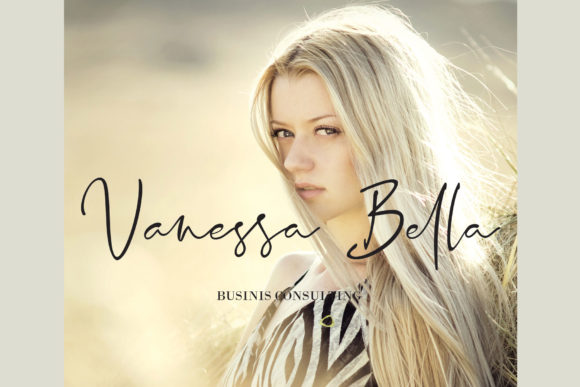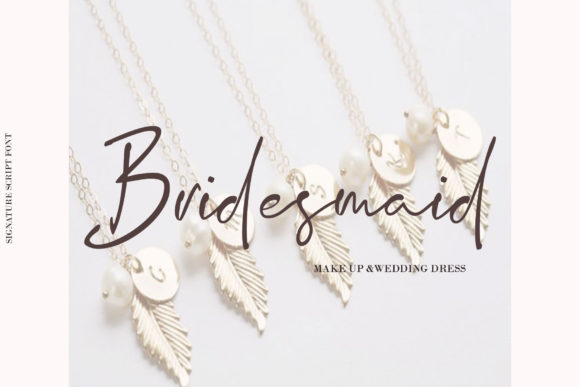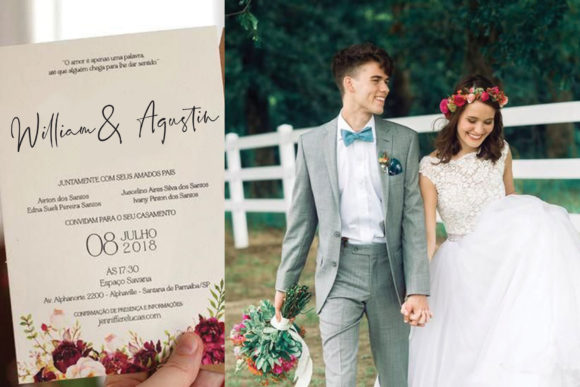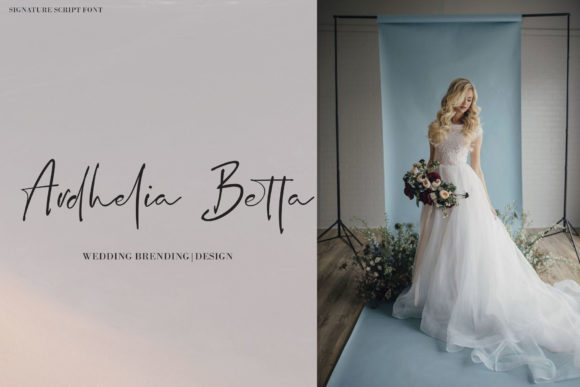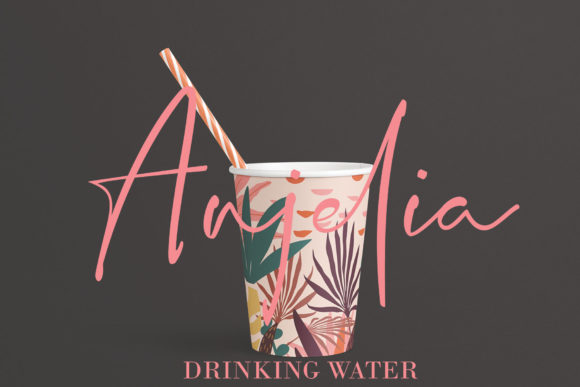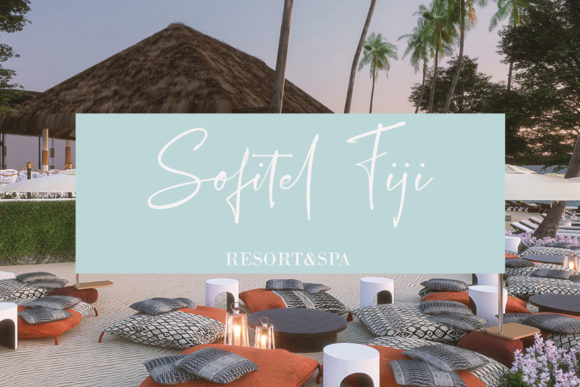
Awestruck Font: Elevate Your Design with a Light and Cool Script Font
Are you a designer or crafter looking for a font that will add a touch of elegance and sophistication to your projects? Look no further than the Awestruck Font. This beautiful, light, and cool script font is designed to elevate any design idea and take it to the next level. With its great sense of style, Awestruck Font is the perfect choice for anyone who wants to create stunning visual content.
What is Awestruck Font?
Awestruck Font is a script font that features a unique and elegant design. Its light and cool style makes it perfect for a wide range of design projects, from digital content to print materials. The font is designed to be highly legible, making it easy to read and understand, even at small sizes.
Key Features of Awestruck Font
- Light and Cool Style: Awestruck Font has a light and cool style that gives it a modern and fresh feel.
- Great Sense of Style: The font has a great sense of style that makes it perfect for designs that require a touch of elegance and sophistication.
- Highly Legible: Awestruck Font is designed to be highly legible, making it easy to read and understand, even at small sizes.
- Script Font: The font features a script design that adds a touch of elegance and sophistication to any design.
Benefits of Using Awestruck Font
There are many benefits to using Awestruck Font in your design projects. Some of the most significant advantages include:
- Elegance and Sophistication: Awestruck Font adds a touch of elegance and sophistication to any design, making it perfect for projects that require a high-end look and feel.
- Versatility: The font is highly versatile and can be used in a wide range of design projects, from digital content to print materials.
- Easy to Read: Awestruck Font is highly legible, making it easy to read and understand, even at small sizes.
- Unique Design: The font features a unique design that sets it apart from other script fonts.
How to Use Awestruck Font
Awestruck Font can be used in a wide range of design projects, including:
- Digital Content: Use Awestruck Font in digital content such as blog posts, social media graphics, and email marketing campaigns.
- Print Materials: The font can be used in print materials such as brochures, flyers, and business cards.
- Branding and Identity: Awestruck Font can be used to create a unique and memorable brand identity.
- Crafting and Scrapbooking: The font is also perfect for crafters and scrapbookers who want to add a touch of elegance and sophistication to their projects.
Tips for Using Awestruck Font
Here are some tips for using Awestruck Font:
- Use it Sparingly: Awestruck Font is a elegant and sophisticated font, so use it sparingly to avoid overwhelming the design.
- Pair it with Other Fonts: The font can be paired with other fonts to create a unique and interesting design.
- Experiment with Different Sizes: Experiment with different sizes to find the perfect size for your design.
In conclusion, Awestruck Font is a beautiful, light, and cool script font that is perfect for designers and crafters who want to add a touch of elegance and sophistication to their projects. With its great sense of style, high legibility, and versatility, Awestruck Font is a great choice for anyone who wants to create stunning visual content. Whether you’re working on a digital project or a print project, Awestruck Font is sure to elevate your design and take it to the next level.